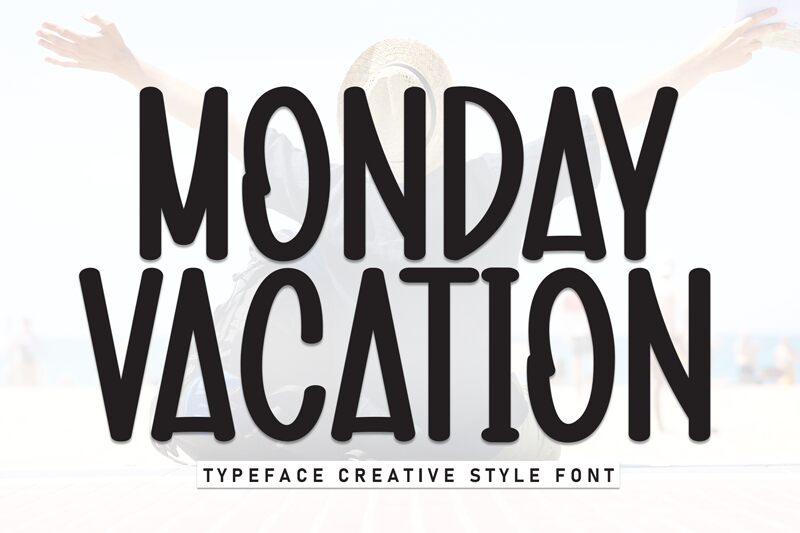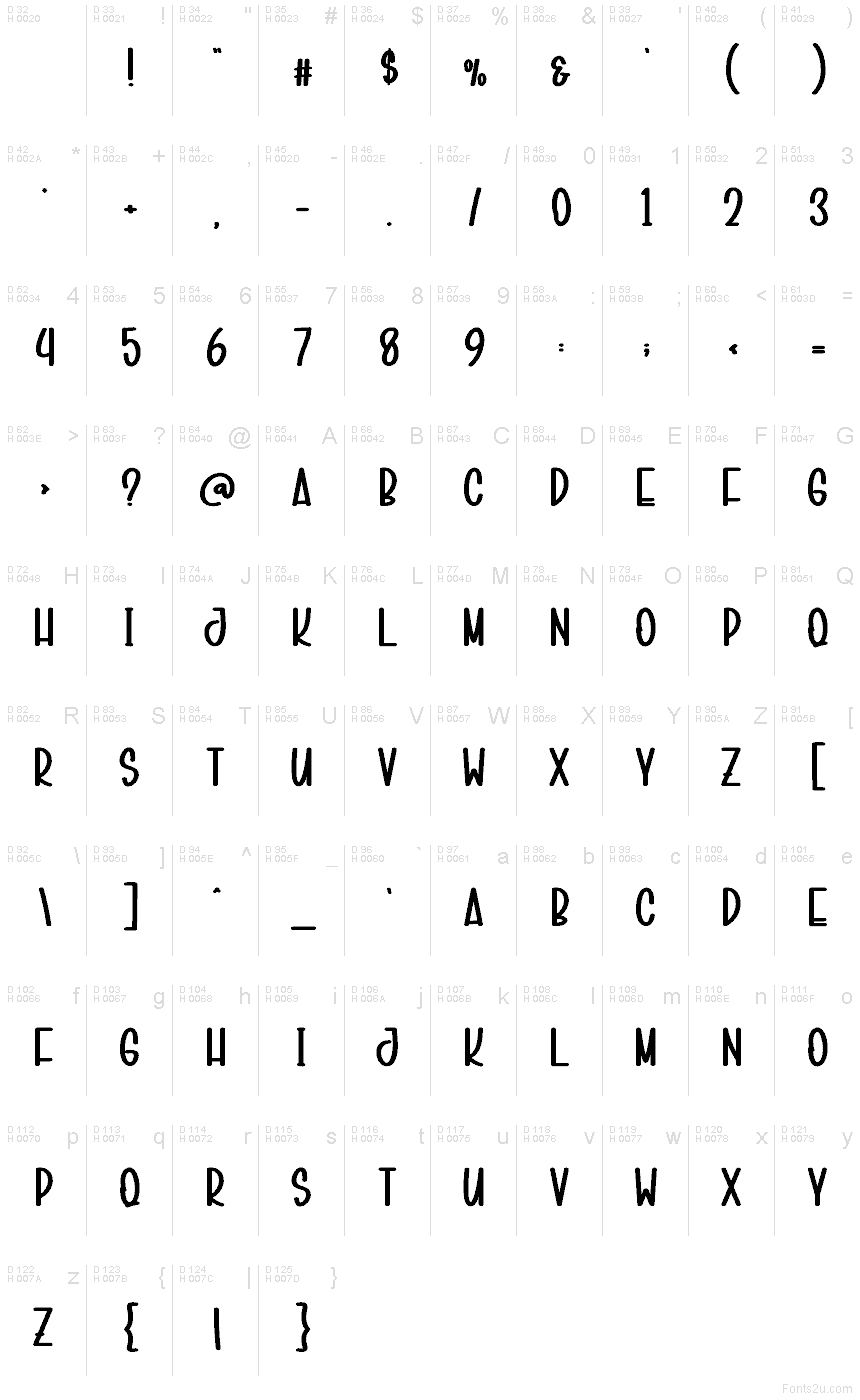
Monday Vacation
Monday Vacation font by Scratchones is a free brush font that feels like a handwritten sign painted outside a beach bar. Tall, narrow letters with rounded ends stack neatly, so you can squeeze bold, shouty words into tight spaces without losing clarity. The strokes are inky and smooth rather than messy, giving it a relaxed, holiday vibe that still reads clean and confident at a glance.
Using Monday Vacation, your designs instantly pick up a sunny, getaway energy that works beautifully for travel posters, beach party flyers, Instagram quotes, T-shirt graphics, product packaging, and casual cafe menus. This free font loves big sizes where its vertical rhythm can stretch and breathe; pair it with a simple geometric sans for body text to keep everything readable and fresh.